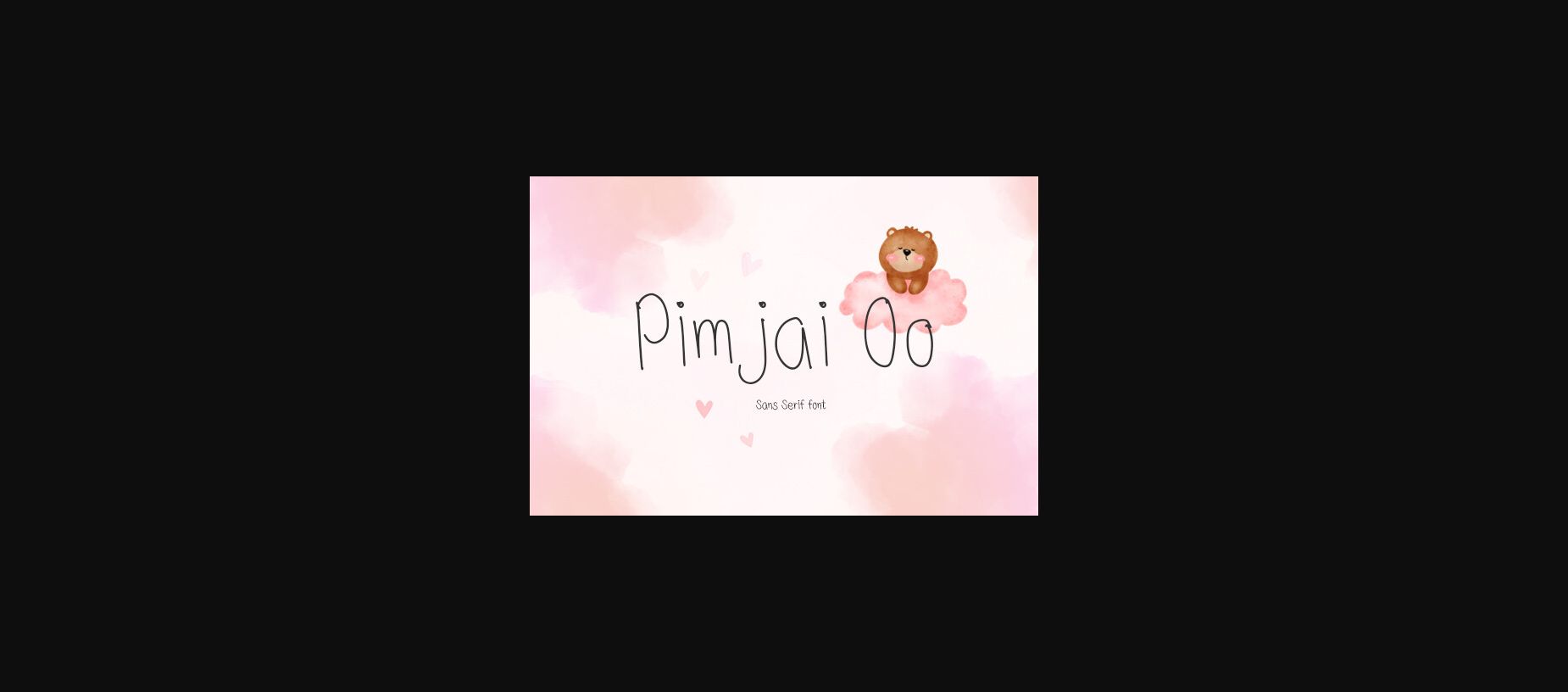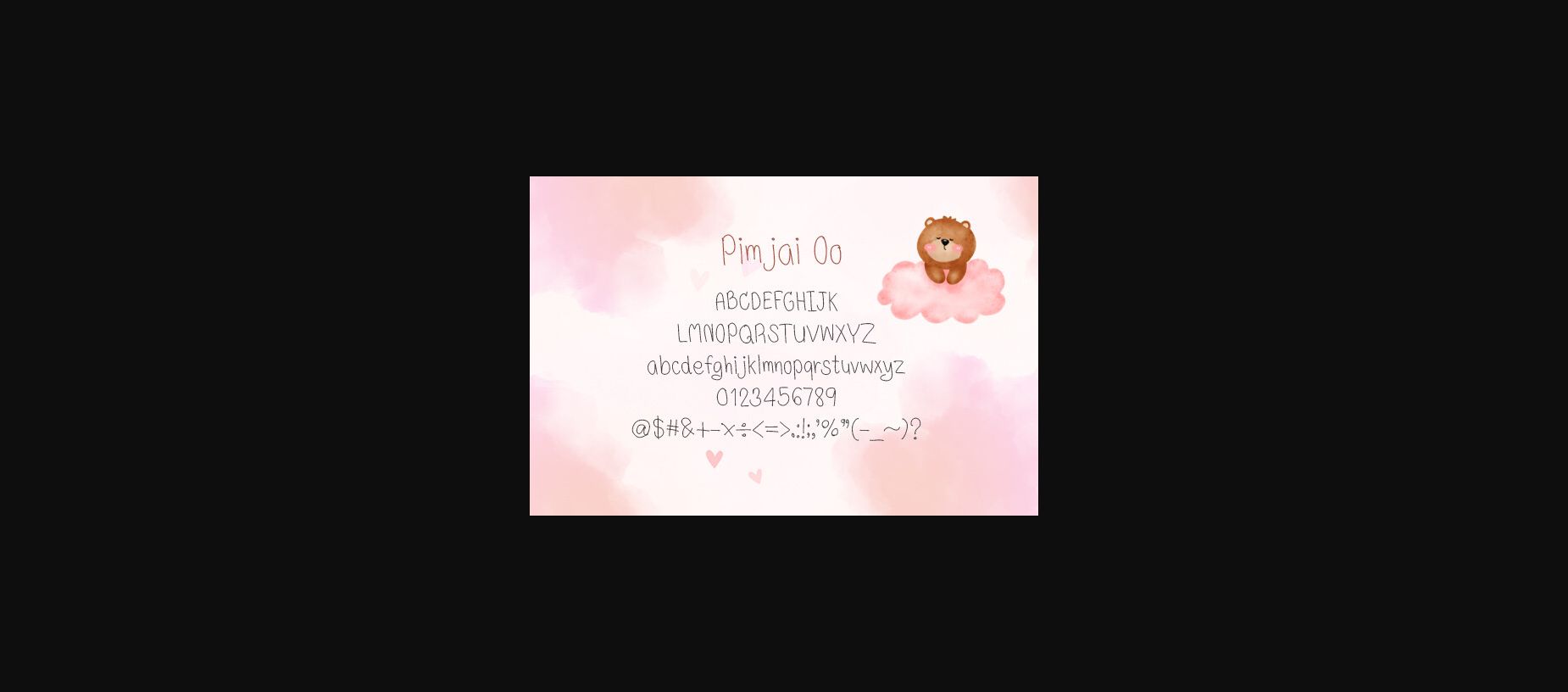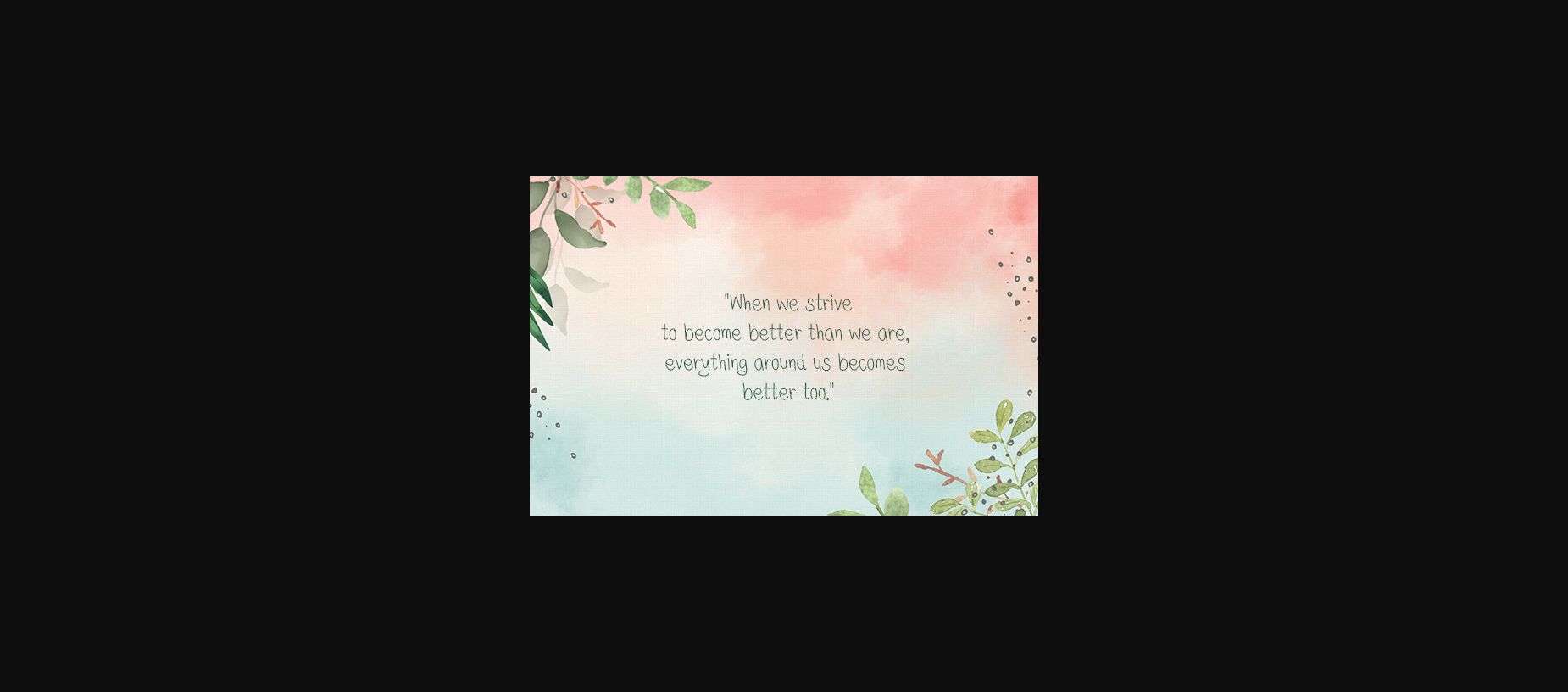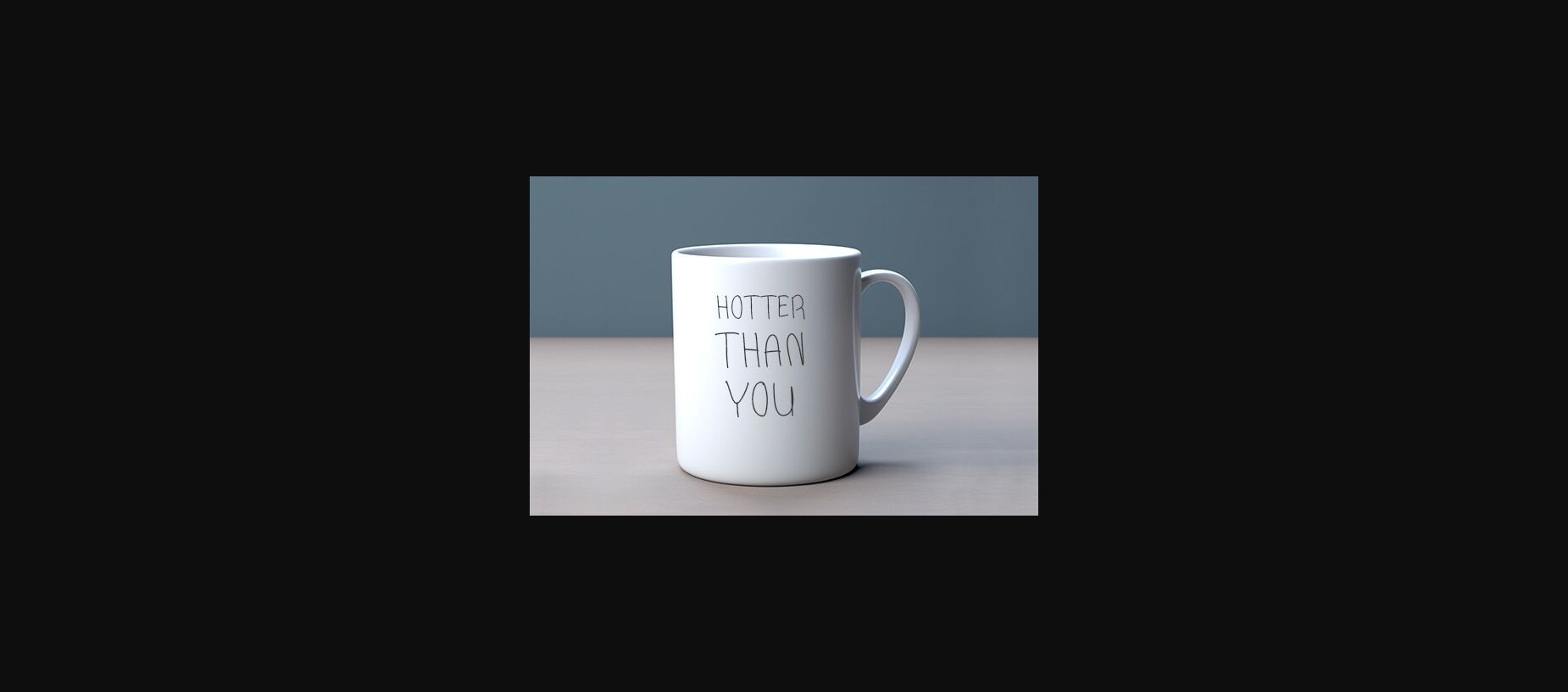
Pimjai Oo Font
About Pimjai Oo Font
Pimjai Oo is a cute, Good mood and playful handwritten font. It informal style and casual vibe. It would be awesome to your fun projects or diary planner, on wedding invitations, thank you cards, quotes, greeting cards, logos, posters, blogs, bag, T Shirt, clothing and other designs. choice for each of the creations that require a relaxed touch.